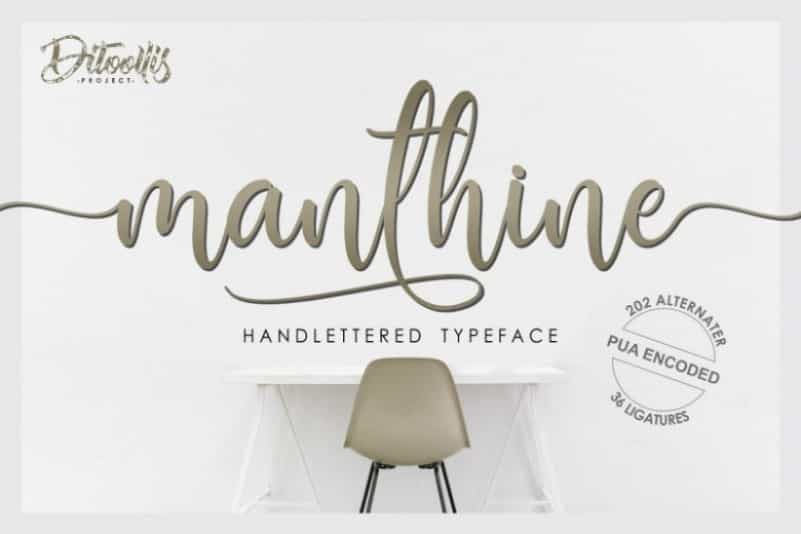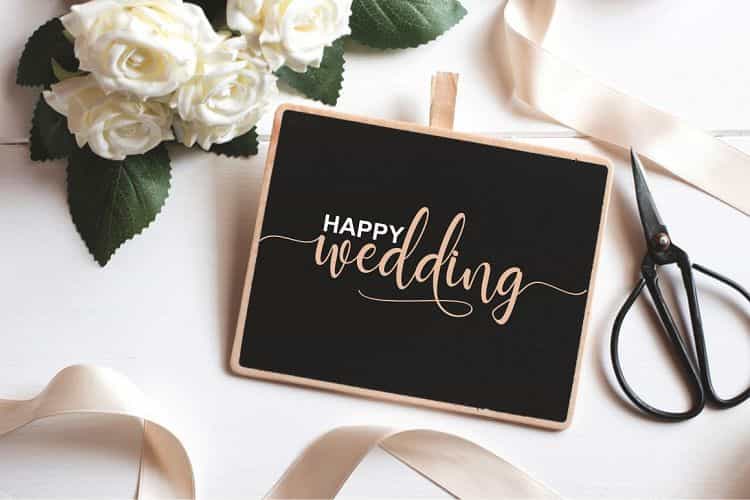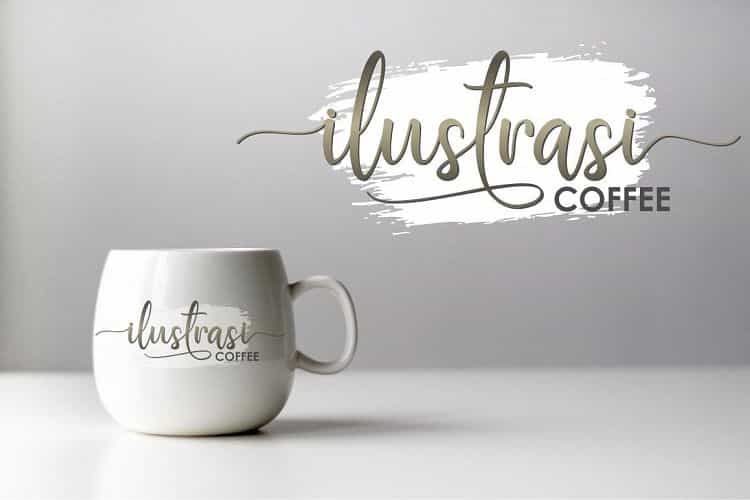
Discover Manthine Font, part of the Calligraphy collection—a versatile and unique font perfect for adding a personal touch to your projects. Download it for free and enjoy crafting designs with style, from invitations to social media posts. This font is available exclusively for personal use, giving you the freedom to create without limits. Unlock your creativity with Manthine Font today!
Manthine Font is very modern, and is perfect for your design. This font is perfect for business cards, logos, covers, comics, invitations, etc.